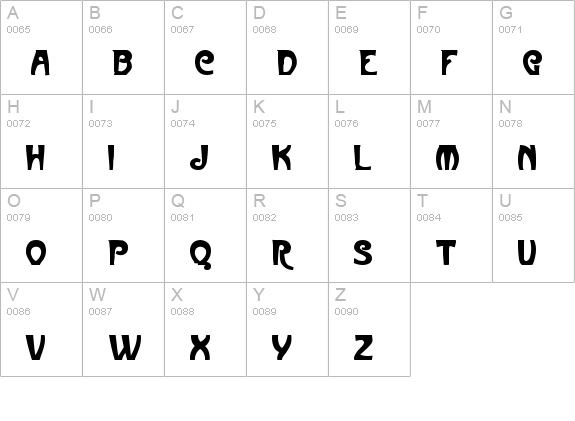
ParisMetro Regular Font Details
ParisMetro Regular is the standard, neutral variant in the ParisMetro typeface family \xE2\x80\x94 well suited to general body text, paragraphs, and standard typographic work.
ParisMetro Regular font is a sleek and modern typeface that effortlessly combines elegance with contemporary design. Its clean lines and perfectly balanced proportions make it perfect for a wide range of projects, from branding and advertising to editorial layouts and web design. This versatile font features a timeless aesthetic that adds a touch of sophistication to any design. It has a classic charm that is reminiscent of the iconic Parisian metro signages, making it an ideal choice for projects that require a touch of Parisian elegance. With its smooth curves and refined letterforms, ParisMetro Regular font offers exceptional legibility at any size. Whether used for headlines or body text, this font ensures that your message is clear and easy to read. One of the best features of ParisMetro Regular font is that it is freely available to download at FontsMarket.com. This means that you can easily access this stunning typeface without any hassle or cost. It is a fantastic opportunity to elevate your design projects without breaking the bank. So, if you are looking for a font that combines timeless elegance with modern sophistication, ParisMetro Regular font is the perfect choice. Download it for free at FontsMarket.com and start using it to create stunning designs that leave a lasting impression.